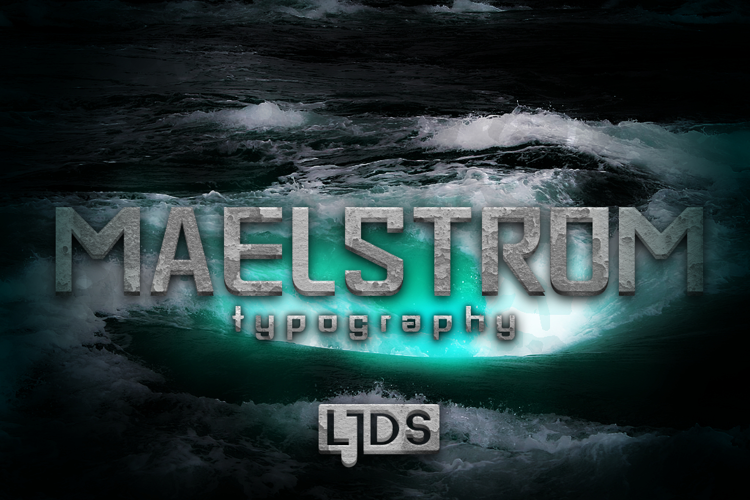
Maelstrom font
Maelstrom is a typographic font inspired by natural events of the earth and space, basic and extensive applies a modern, semi-geometric design.